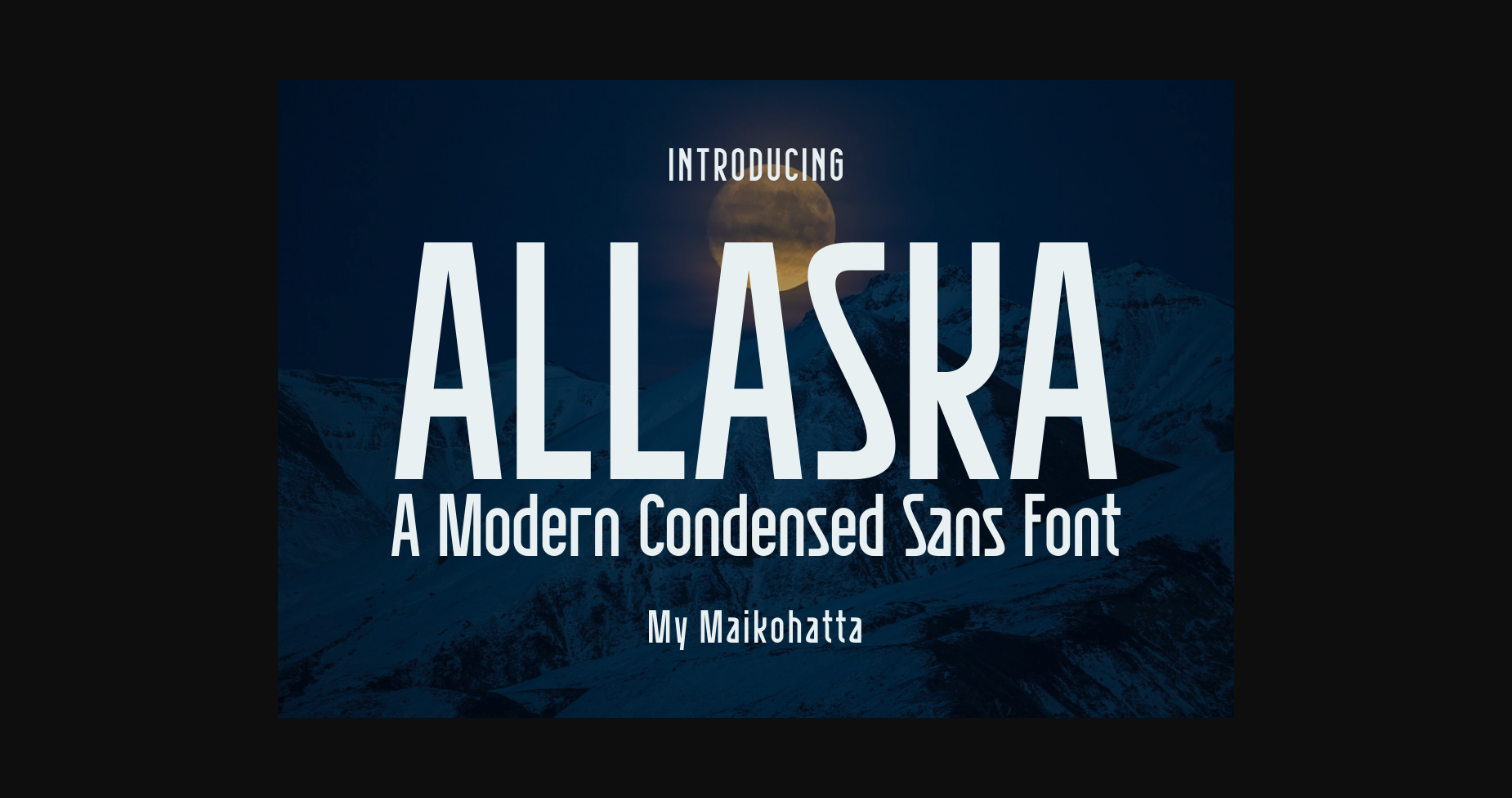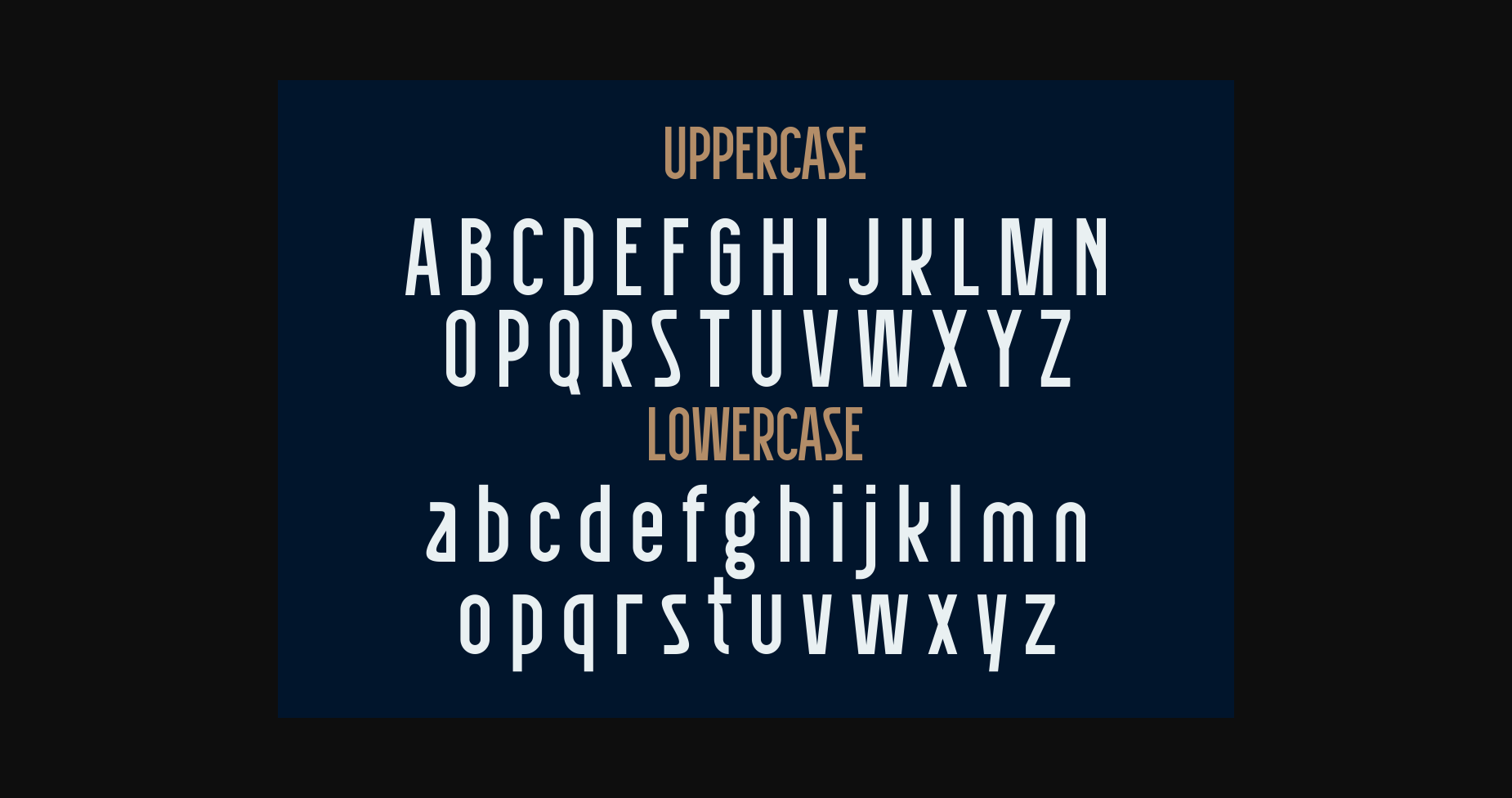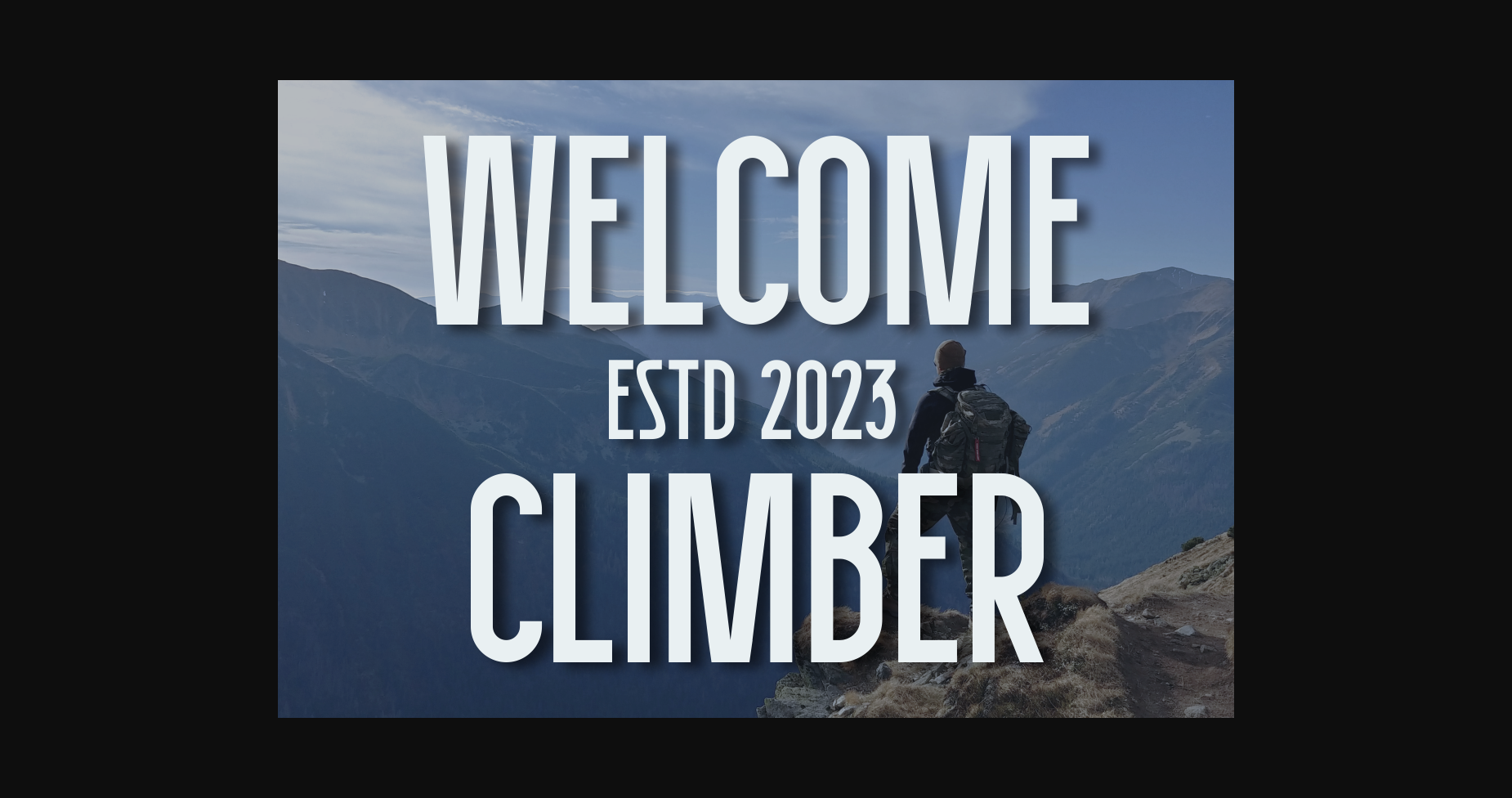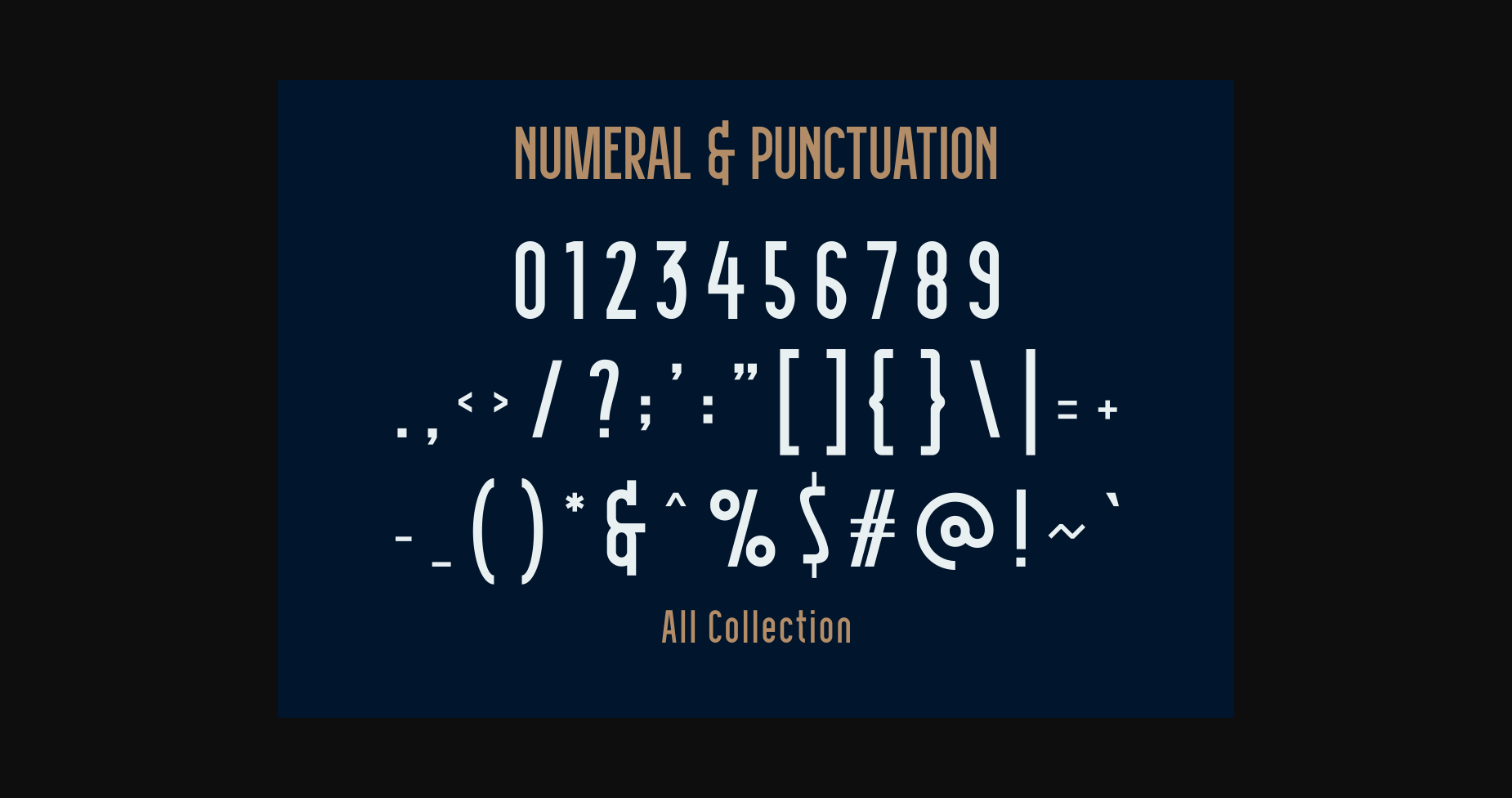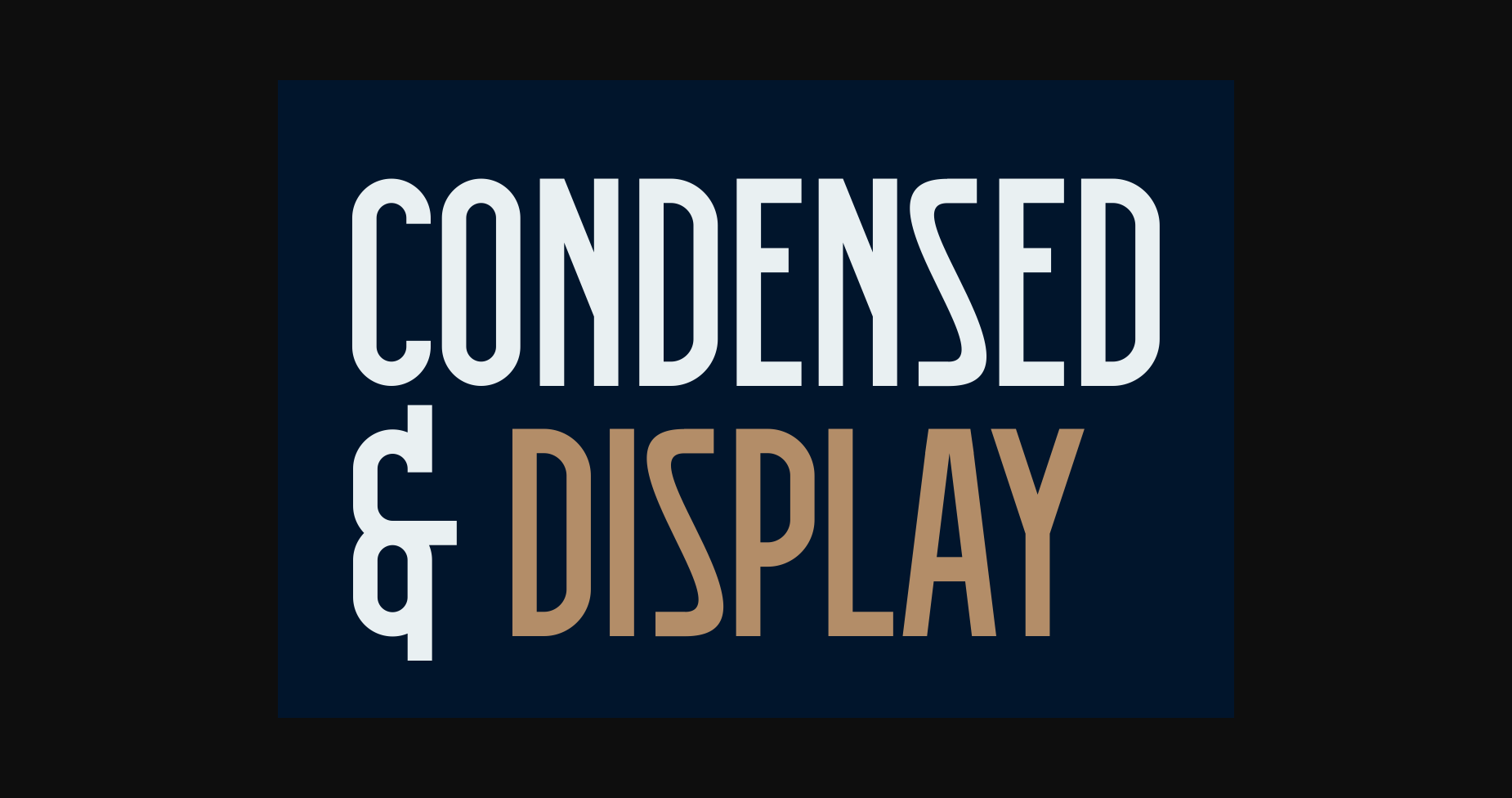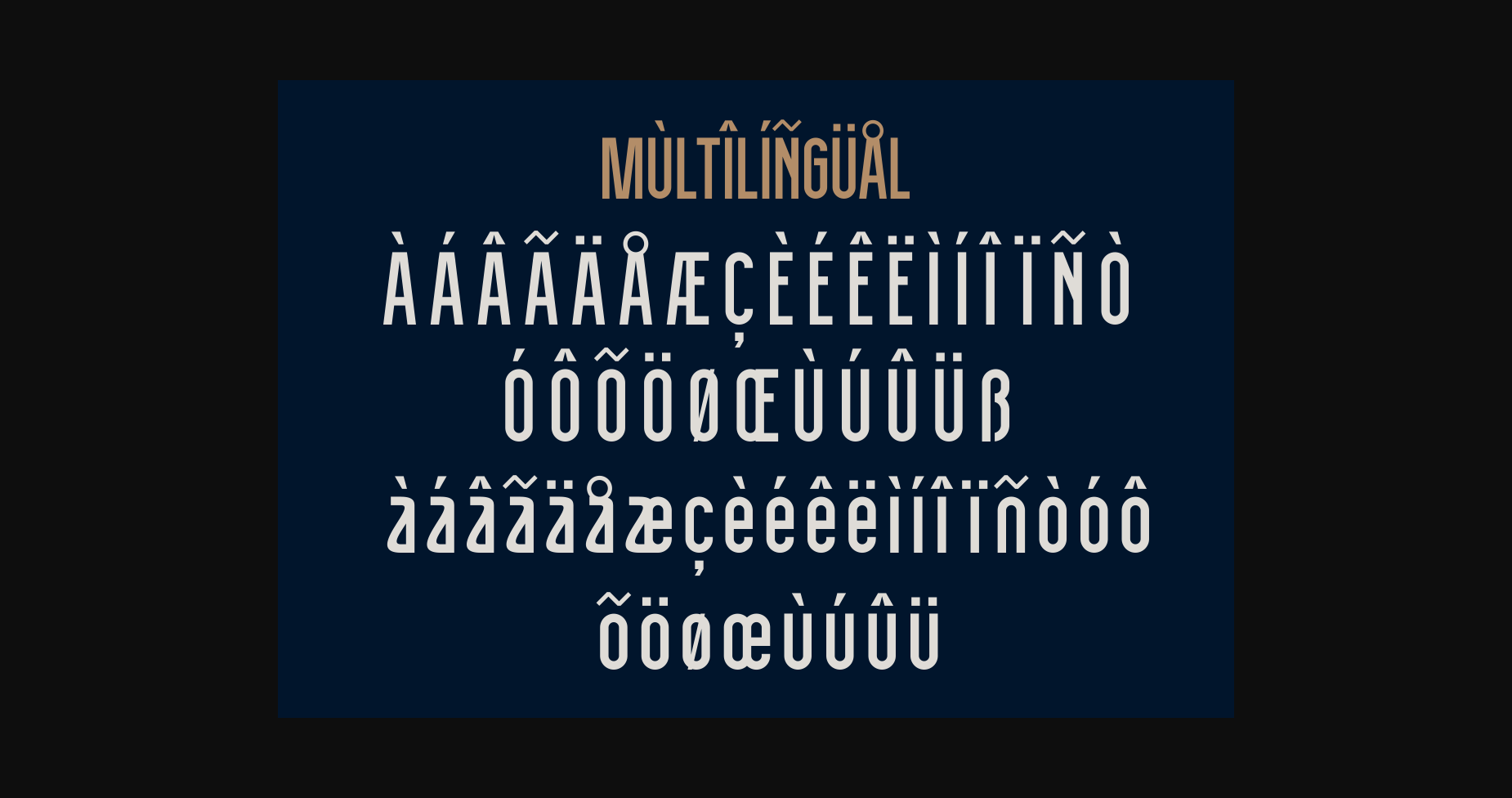
About Allaska Font
Introducing our new product **Varelmo Font**
**Varelmo Font** – Modern Font is a bold and authentic display font. The font is suitable for any branding project like logo, template design, esport, and many more. outstanding in a wide range of contexts.
* Uppercase
* Lowercase
* Multilingual